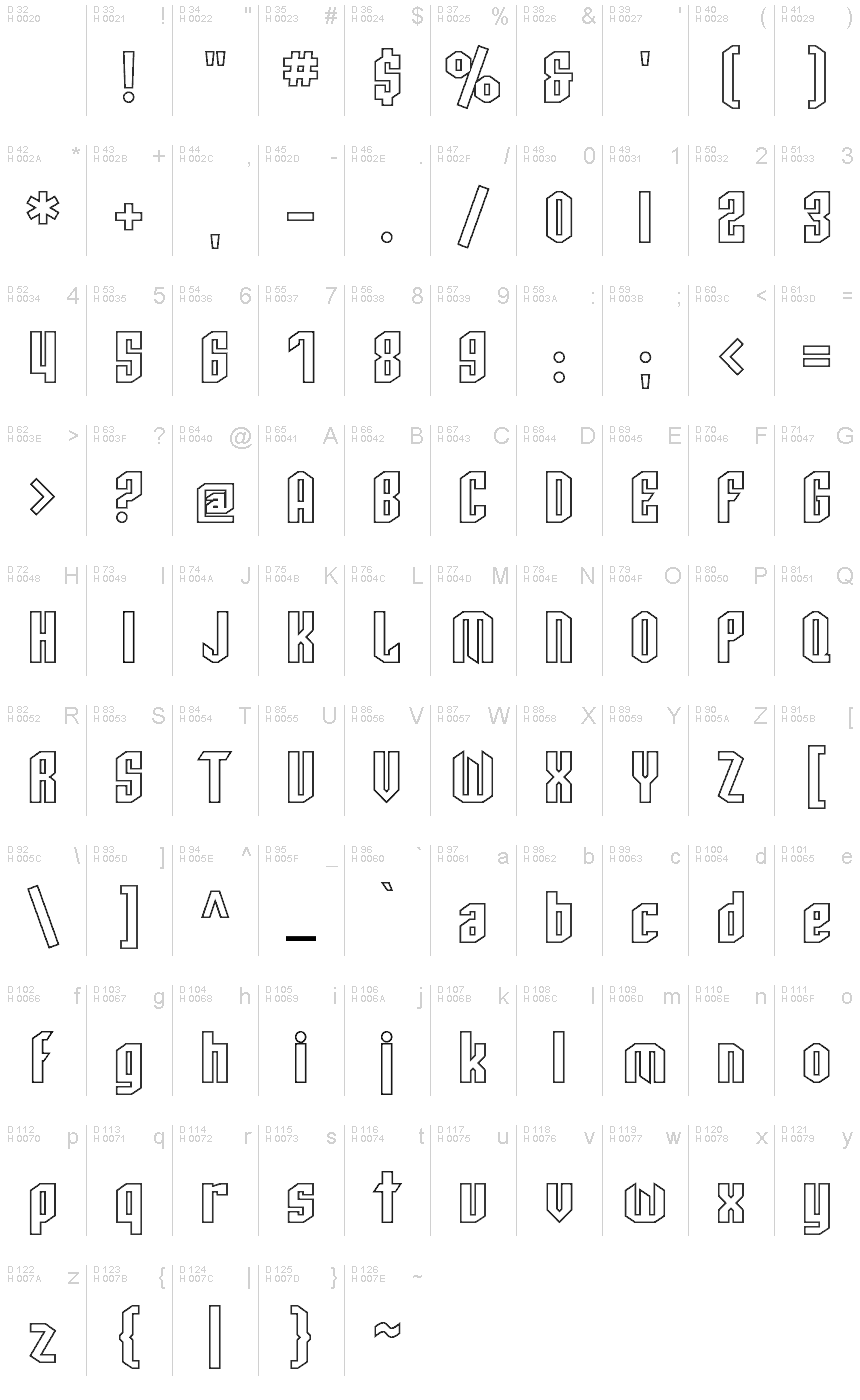
SF Archery Black Outline
SF Archery Black Outline, a distinctive display font from the SF Archery Black family, is a true standout in the realm of typography. Crafted with precision by ShyFonts Type Foundry, this font encapsulates a modern and bold aesthetic while maintaining an accessible charm through its outlined style. The extra-condensed width of SF Archery Black Outline lends itself to creative endeavors that demand attention without overpowering the canvas.
Its sharply defined lines and geometric form make it an ideal choice for designers aiming to convey strength and innovation. The outlined characteristics provide a contemporary twist on traditional typefaces, offering an airy yet assertive presence that enhances visual hierarchy and readability.
Whether you're designing impactful headlines, eye-catching logos, or dynamic branding materials, SF Archery Black Outline's unique style ensures your project will make a lasting impression. Its versatility across print and digital media opens up endless possibilities for creatives looking to infuse their work with character and sophistication.
Its sharply defined lines and geometric form make it an ideal choice for designers aiming to convey strength and innovation. The outlined characteristics provide a contemporary twist on traditional typefaces, offering an airy yet assertive presence that enhances visual hierarchy and readability.
Whether you're designing impactful headlines, eye-catching logos, or dynamic branding materials, SF Archery Black Outline's unique style ensures your project will make a lasting impression. Its versatility across print and digital media opens up endless possibilities for creatives looking to infuse their work with character and sophistication.